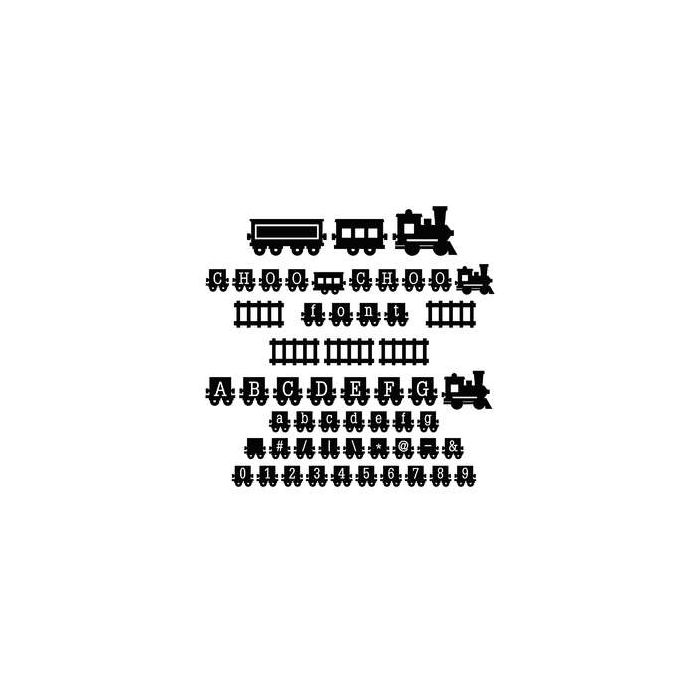
Choo Choo Train Carriage Font - Make train works using the carriage and track accessories. Perfect for names and phrases, themed parties, gifts and more! Includes upper and lowercase letters, numbers and accessories including special characters, add on plain carriages, the train front and track. All allocated to keyboard keys, simply type to use or view all glyphs on the glyphs panel or character map.